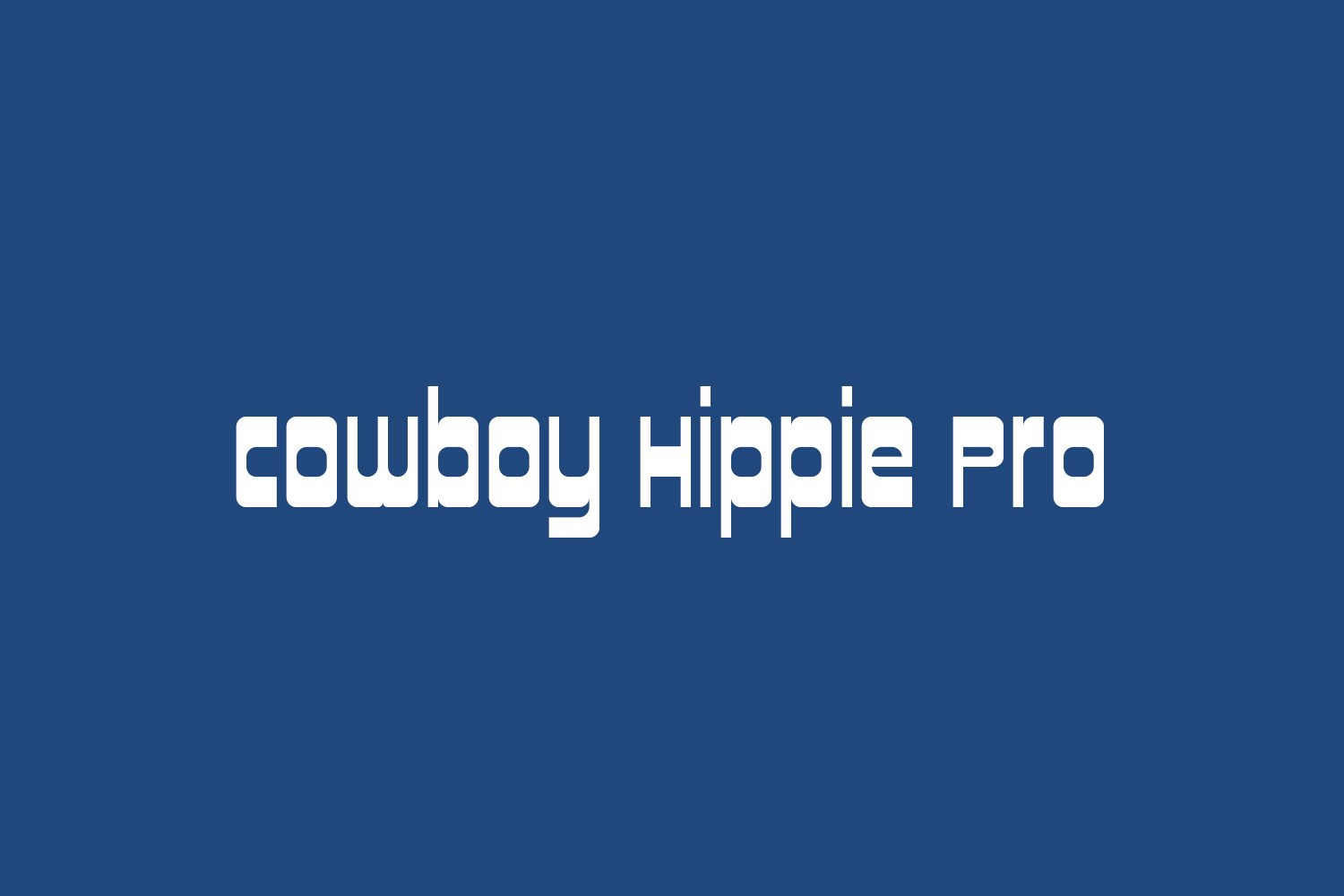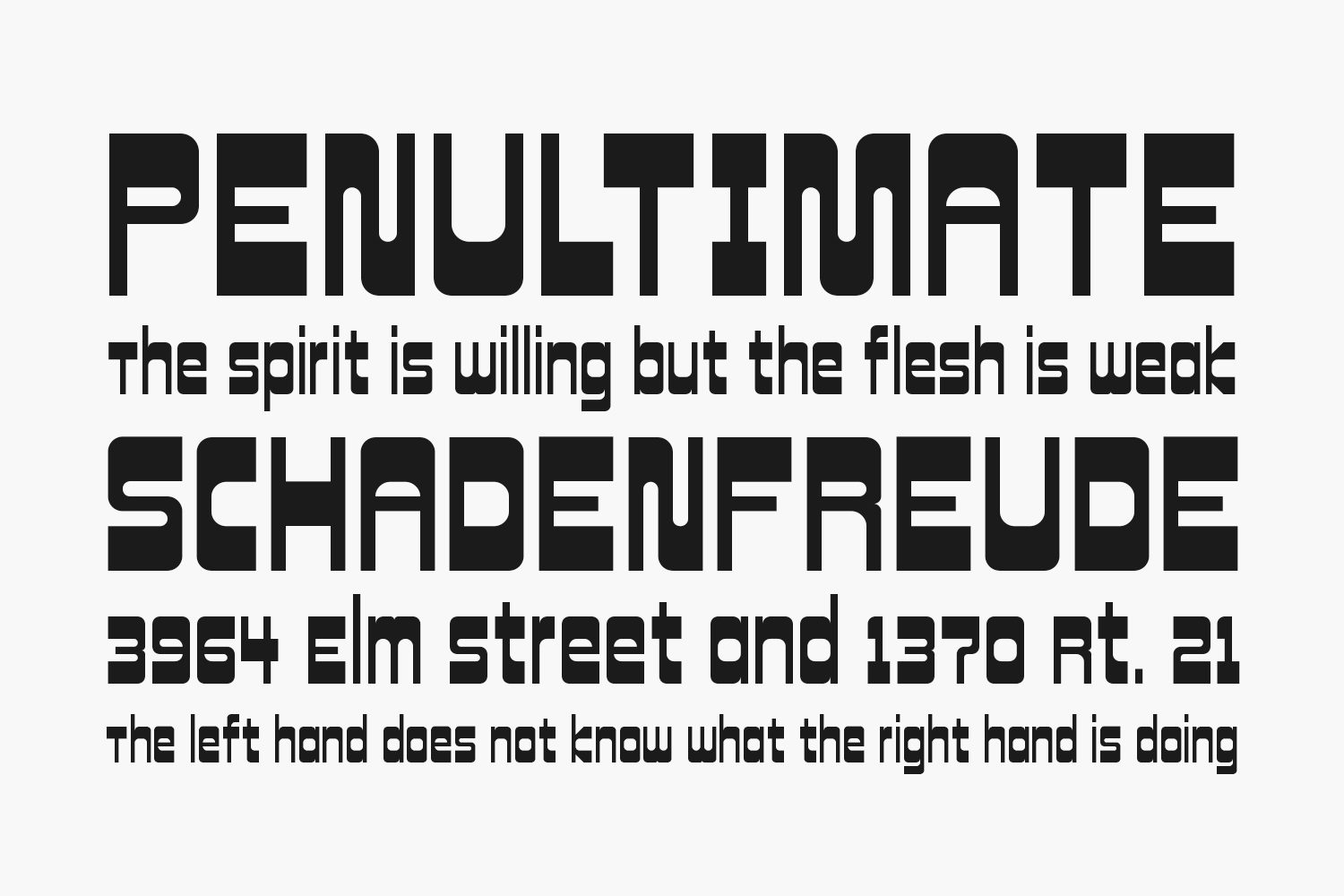
Inspired by and adapted from Stretto from Canada Type – which again was inspired and expanded from Sintex by Aldo Novarese.
Cowboy Hippie Pro was originally made with FontStruct but this Pro version have cleaned up outlines, corrected spacing, and added kerning… Also includes an alternate “a”, available via your programs’ glyph palette or using the OpenType functions “Stylistic Alternates”/“ss01”.
Designed by CheapProFonts